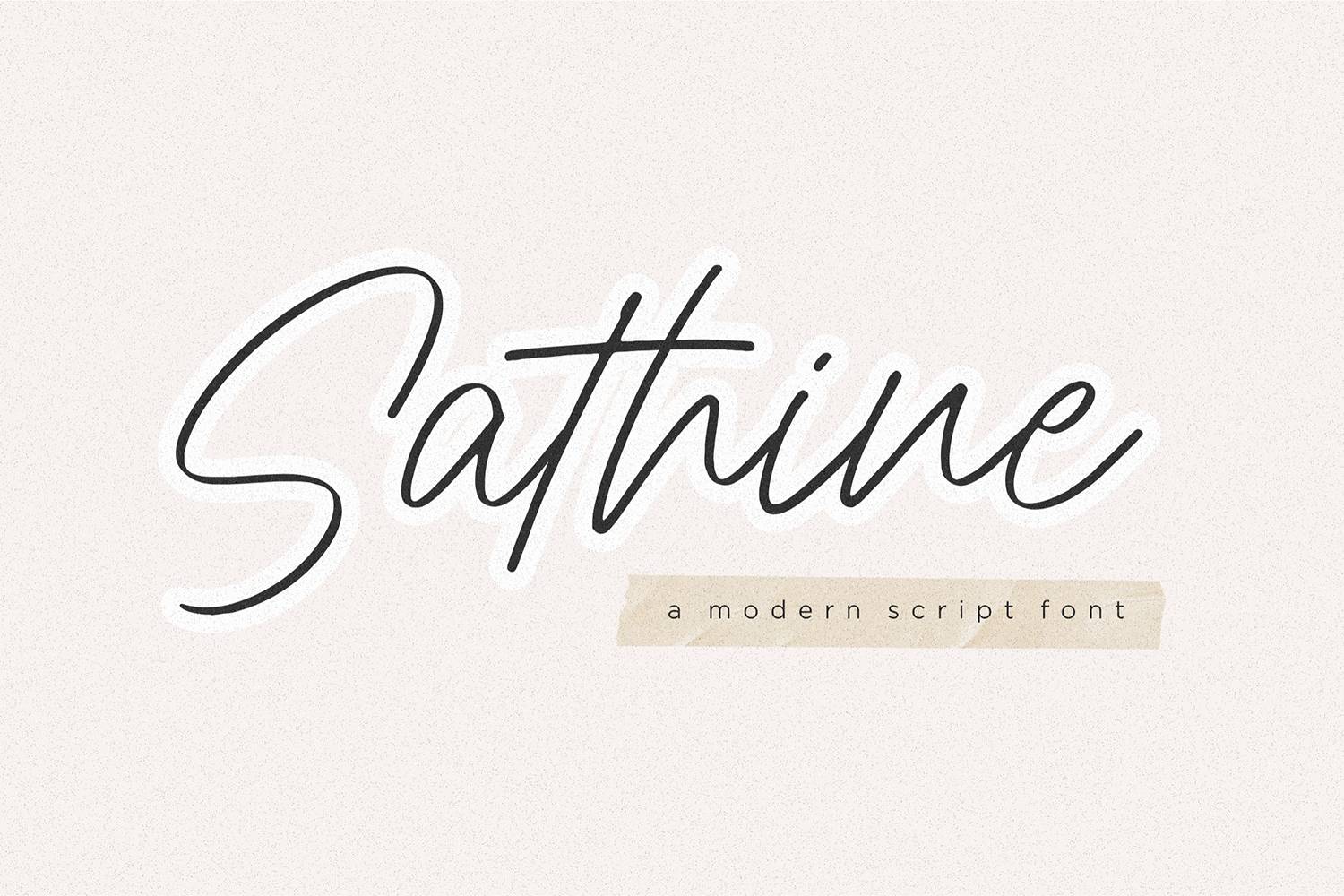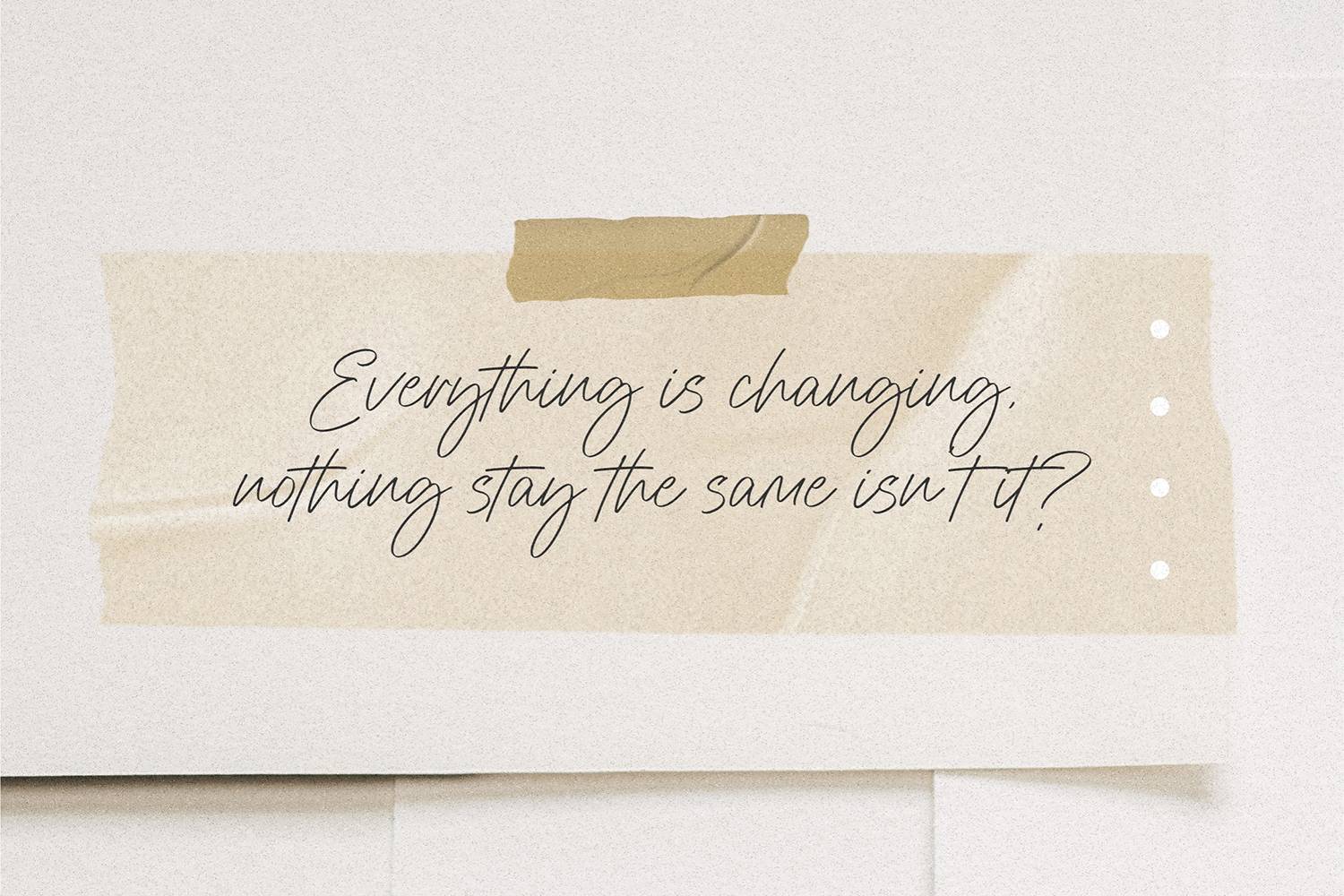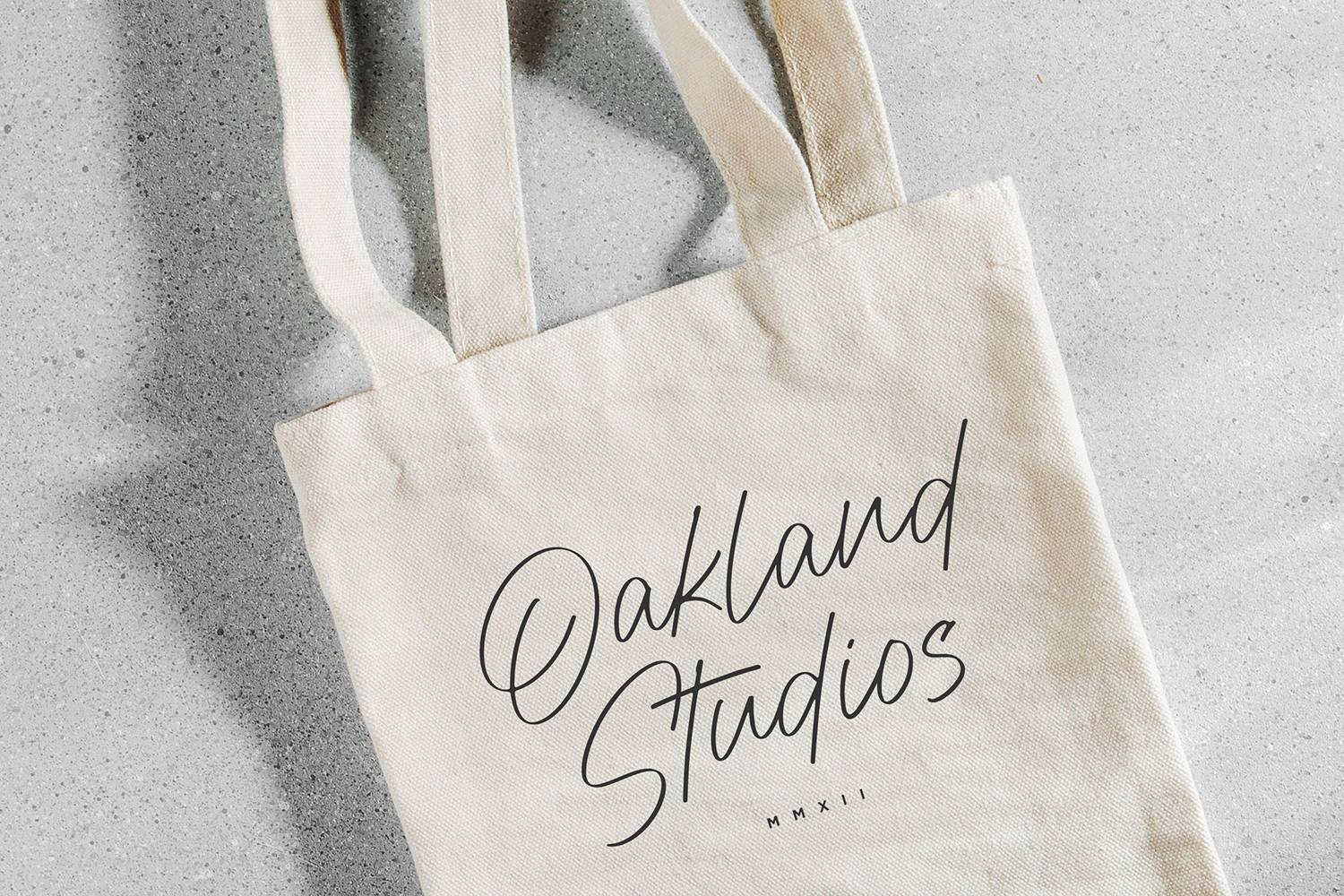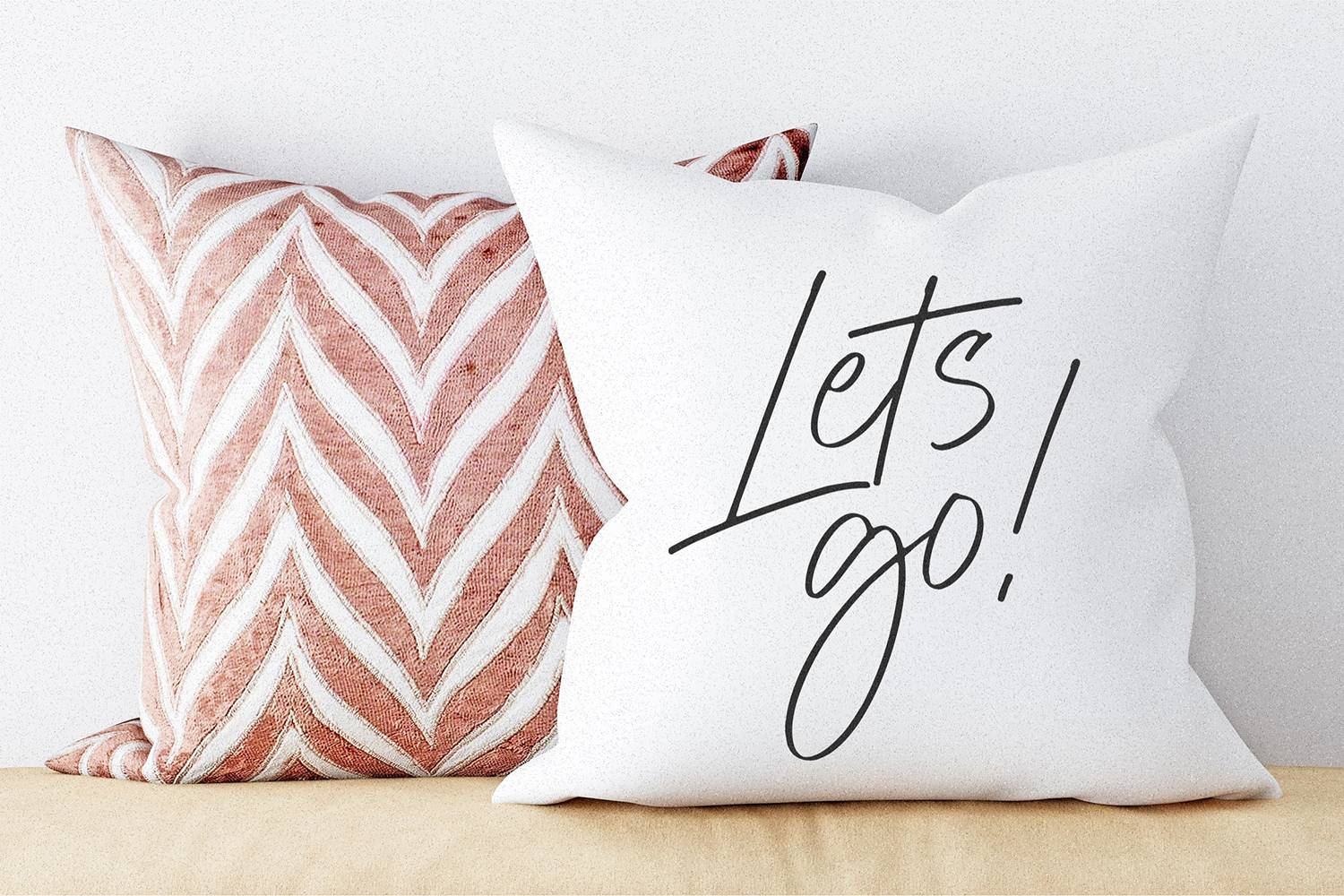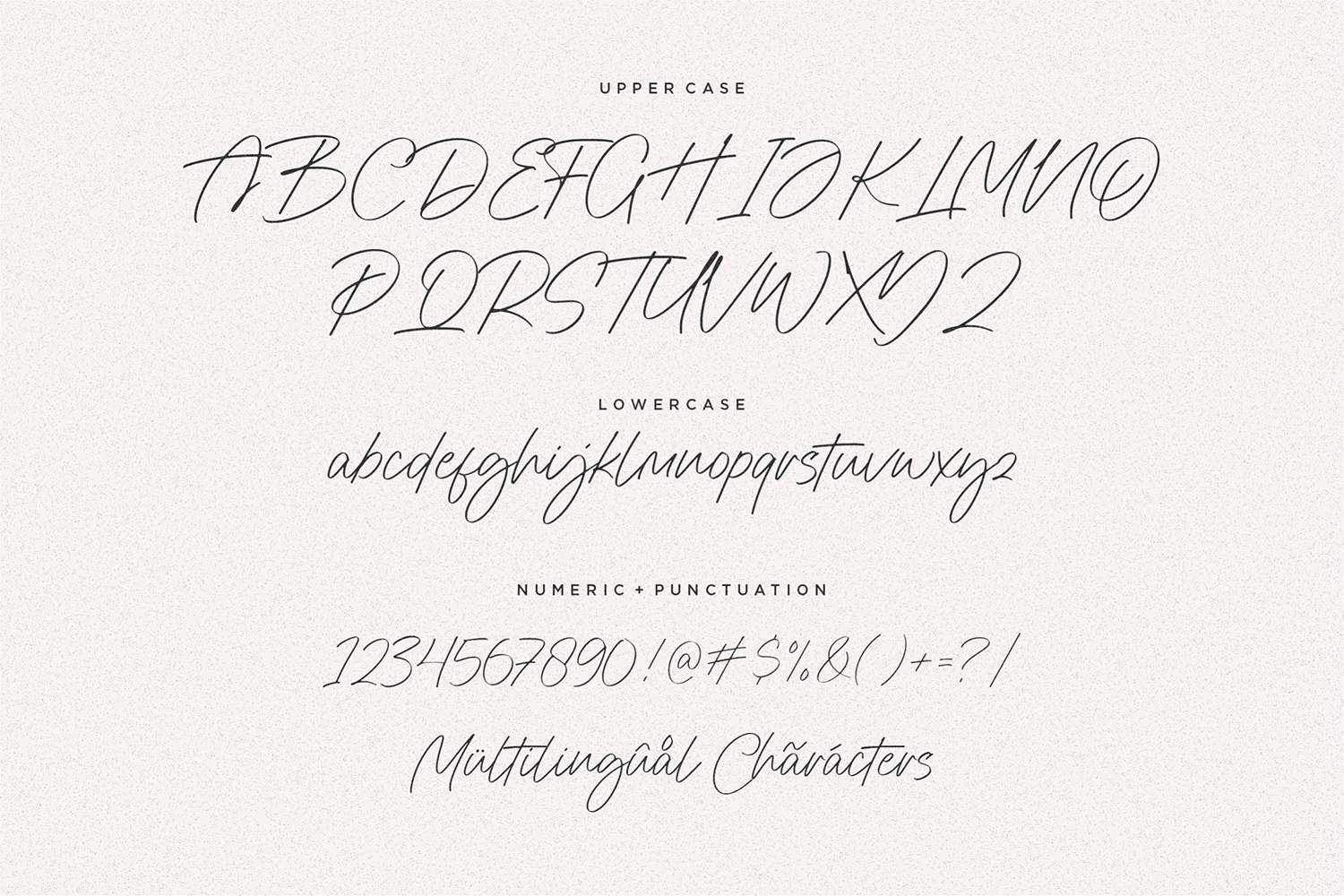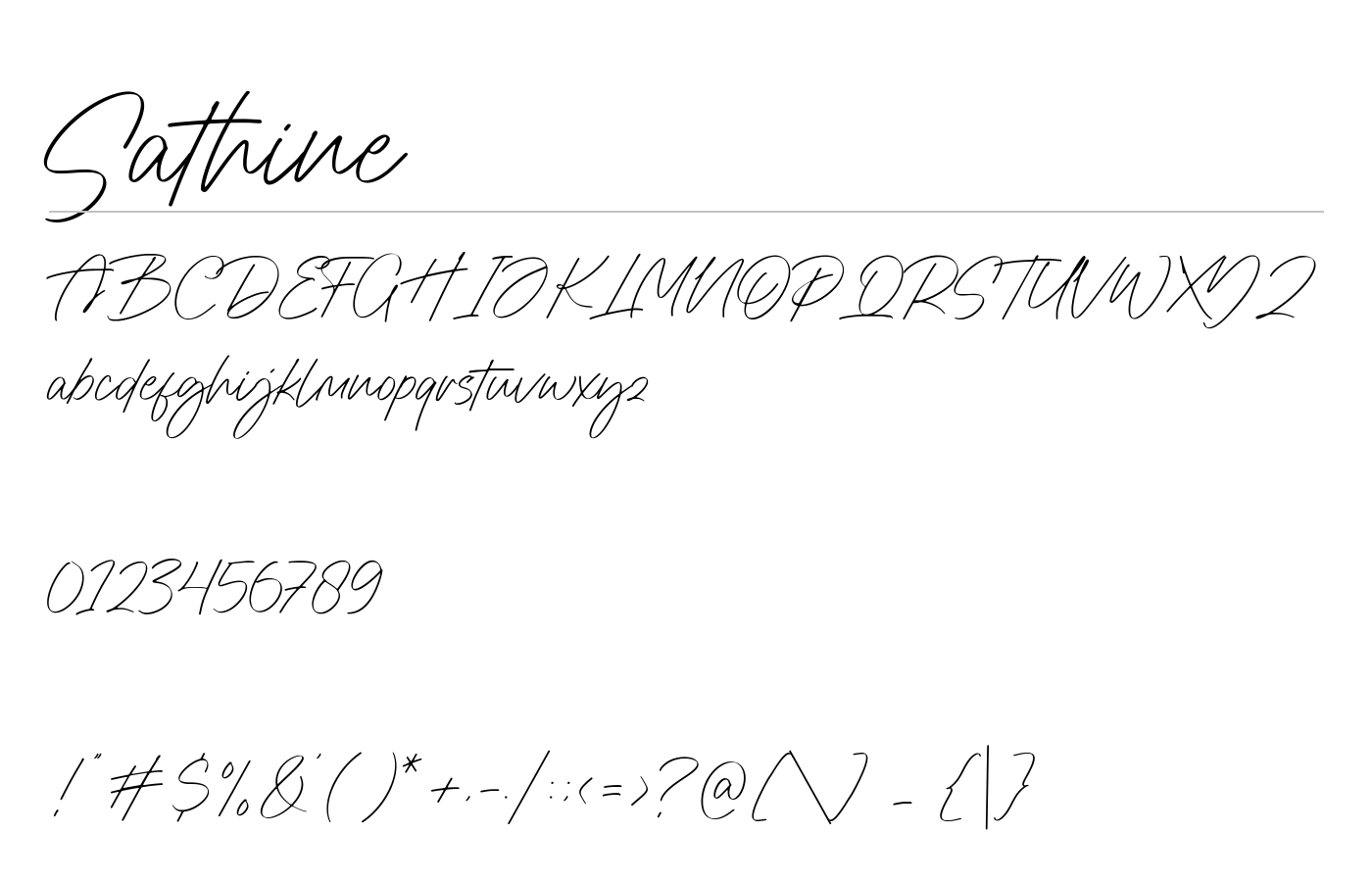
Sathine is a delicate, handwritten script font that features thin, airy strokes with a natural, flowing style. Its elegant yet casual appearance makes it perfect for personal branding, invitations, and creative projects that need a charming and approachable touch. This font’s slender lines and smooth curves give it a sophisticated but friendly personality ideal for stylish, modern designs.
Sathine Font
About Sathine Font